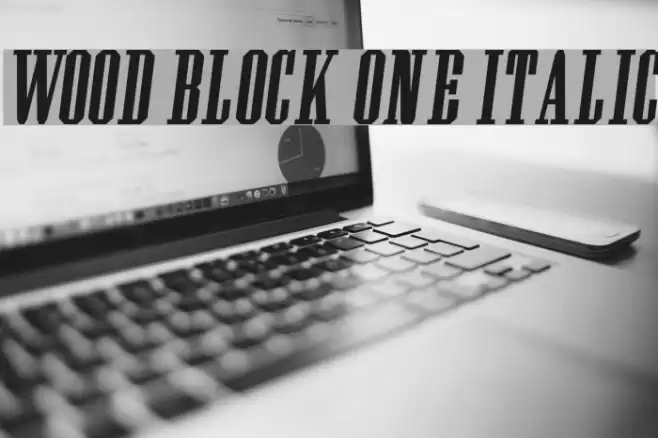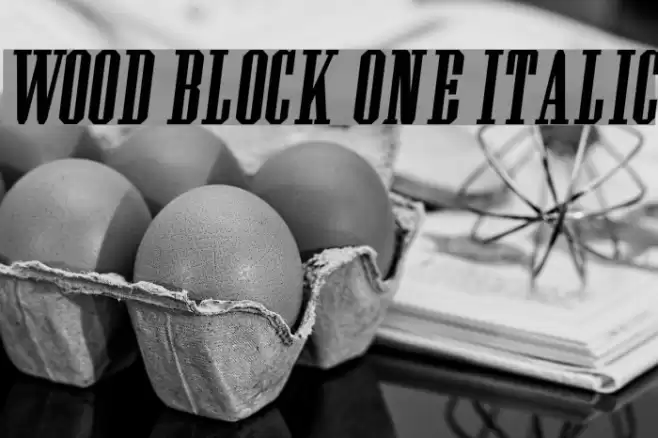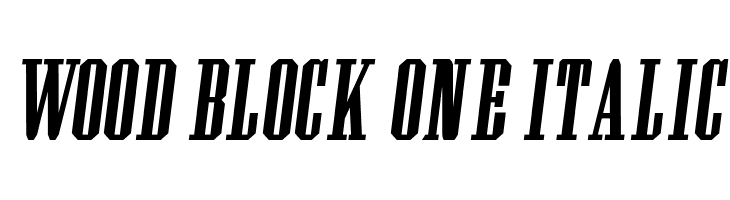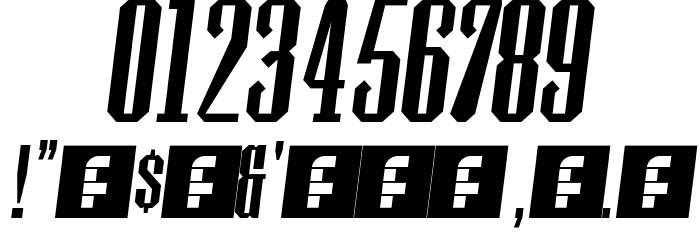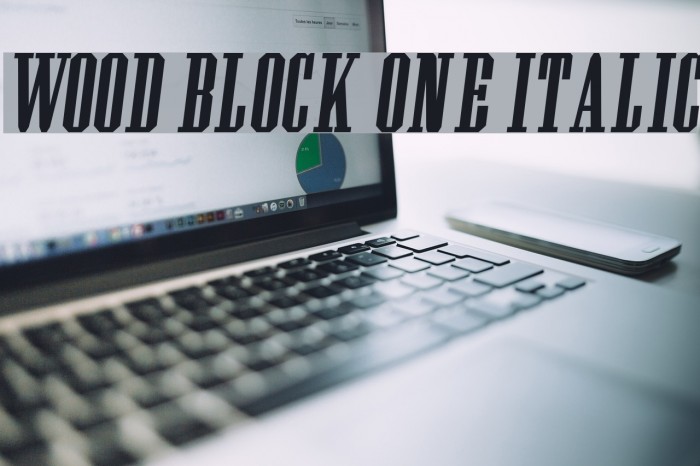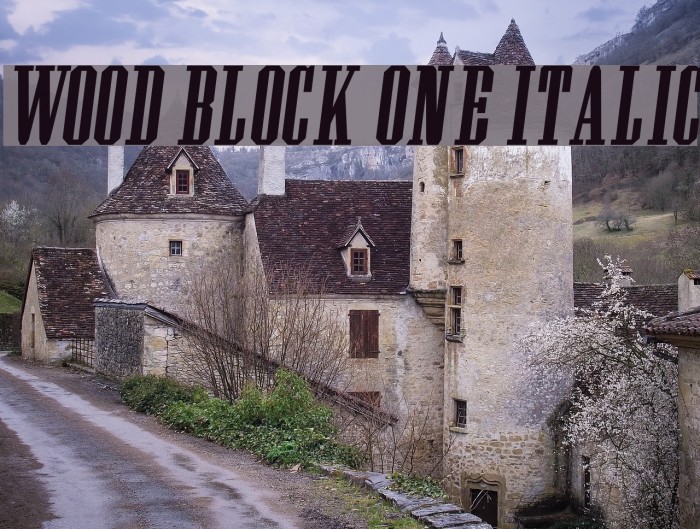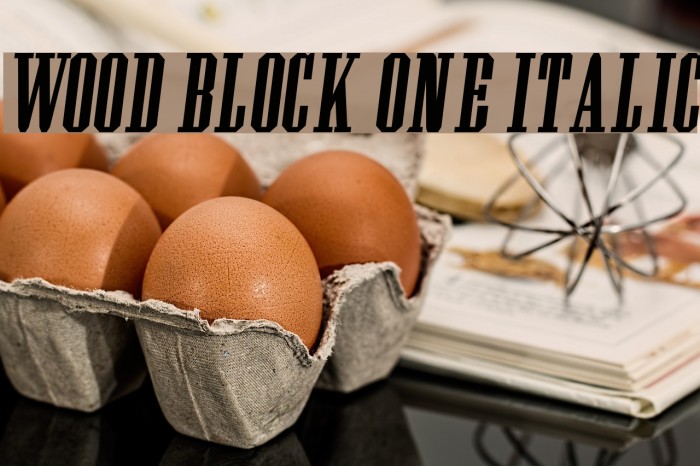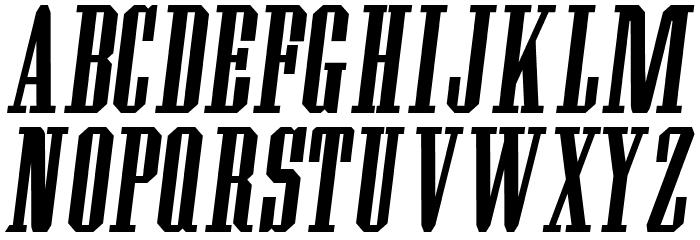
Wood Block One Italic Font
Wood Block One Italic Description
This font features a bold and dynamic design with a distinct slant, giving it an italicized appearance. The characters are robust and have a woodblock-inspired aesthetic, characterized by thick, solid strokes and sharp angles. The uppercase letters are particularly striking, with a strong presence, while the lowercase letters maintain the same boldness. The numbers and special characters are consistent with the overall style, ensuring a cohesive look. The font's design is reminiscent of vintage poster typography, making it ideal for projects that require a bold and impactful statement.
A bold, italicized font with a woodblock-inspired, vintage aesthetic from Uncategorized fonts.
- Proposed Projects: Ideal for posters, headlines, branding, and any project needing a bold, vintage look.
- Overall Style: Vintage